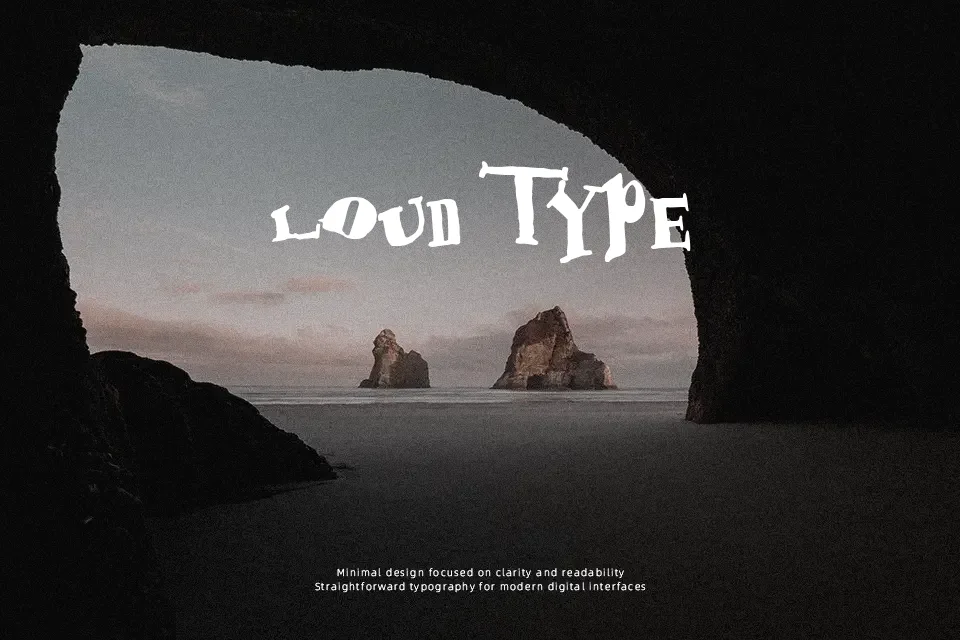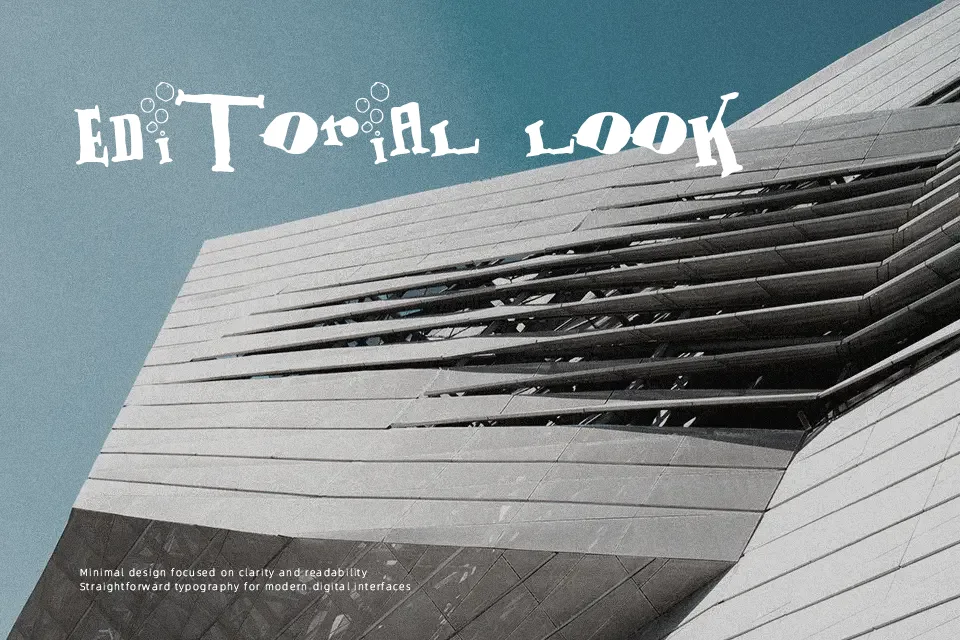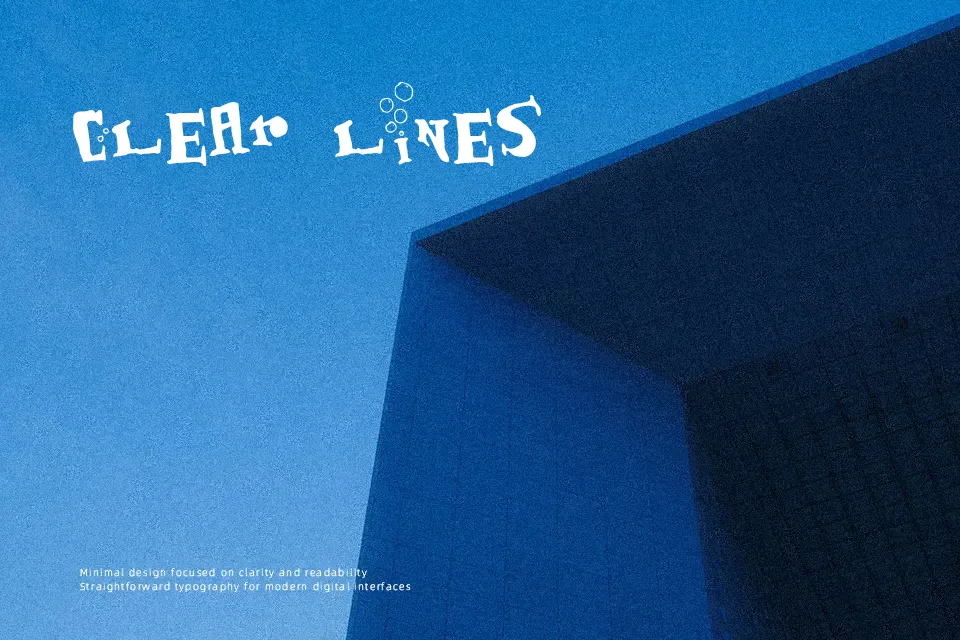
BabOonjaZzbaSsOon Font
Designed by Schmopyright
BabOonjaZzbaSsOon leans into exaggerated cartoon shapes, with uneven strokes, irregular curves, and loose spacing that make every word feel noisy and animated. Its chunky structure pushes letters upward and sideways, so text tends to wobble rather than sit on a straight line. This works well for short phrases on party posters, youth-oriented branding, comic-style titles, or humorous game splash screens where legibility at a glance matters more than typographic refinement. The same wild rhythm makes it a poor choice for body copy, UI, or serious editorial work, where it quickly becomes tiring and looks unprofessional. Used sparingly as a headline accent, it adds character; pushed into long text, it simply overwhelms.
kids party poster titles
comic-style YouTube thumbnails
playful game splash screens
fun music or band flyers
formal corporate branding
user interface labels
print layouts with dense copy
Perfect for gaming, headline, and kids, with a artistic and cartoon style.